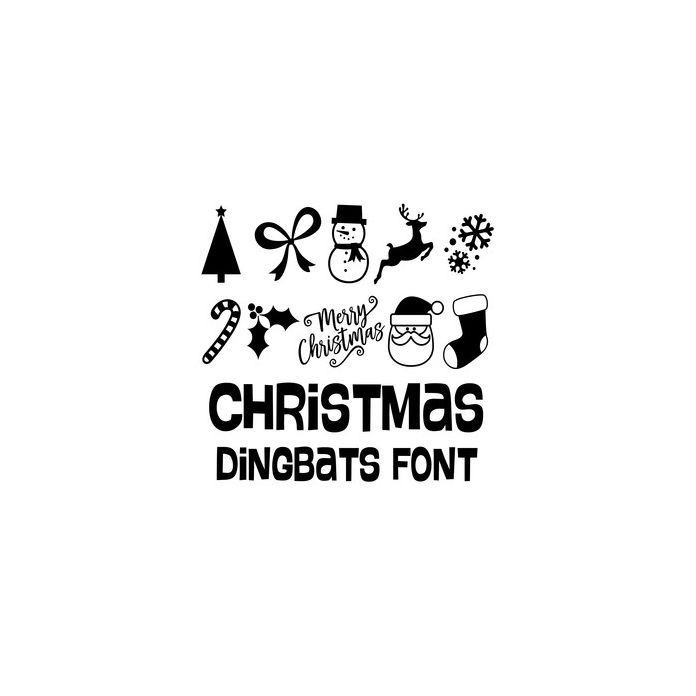
christmas dingbats font
This cute dingbat font includes 26 Christmas icons that you can type + cut. Make adorable Christmas projects with ease with this fun font.